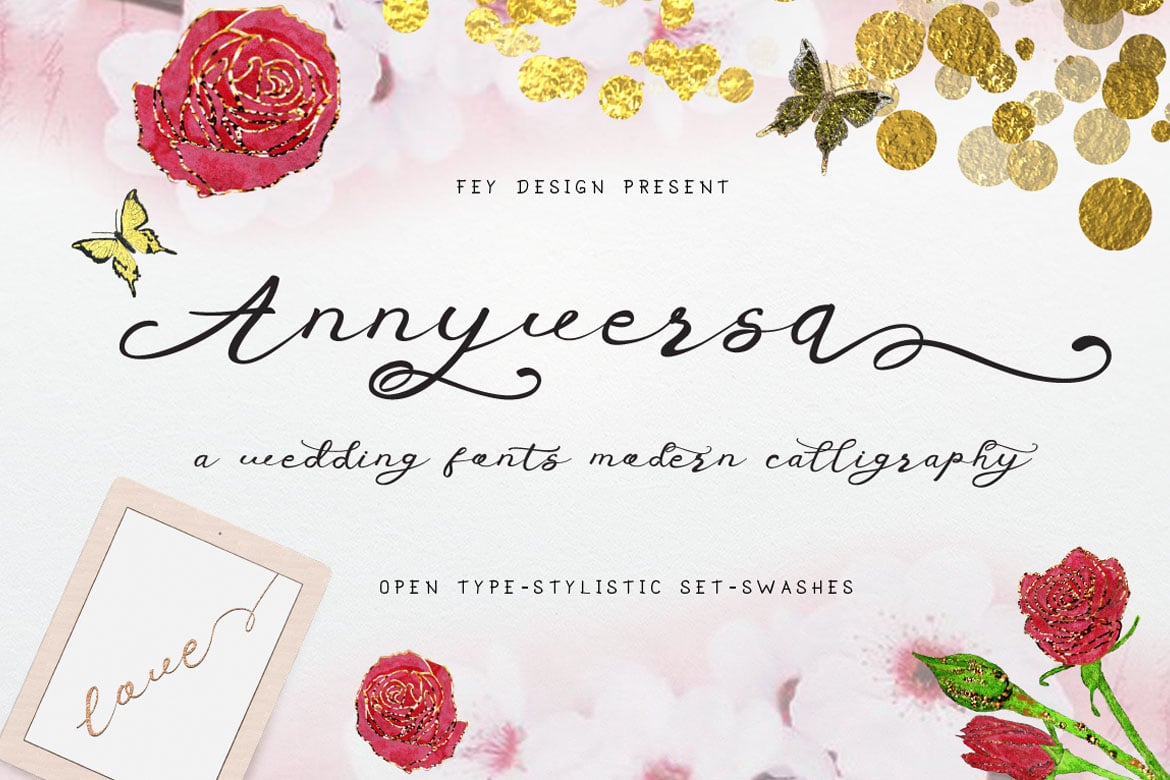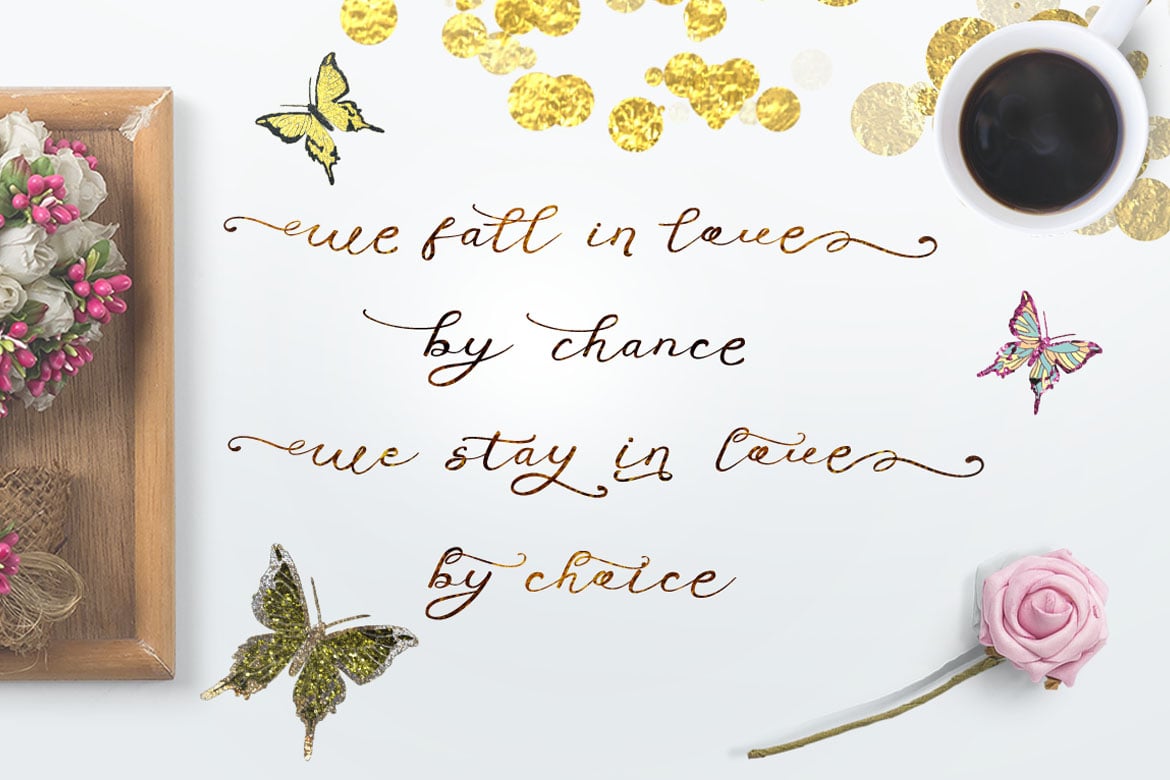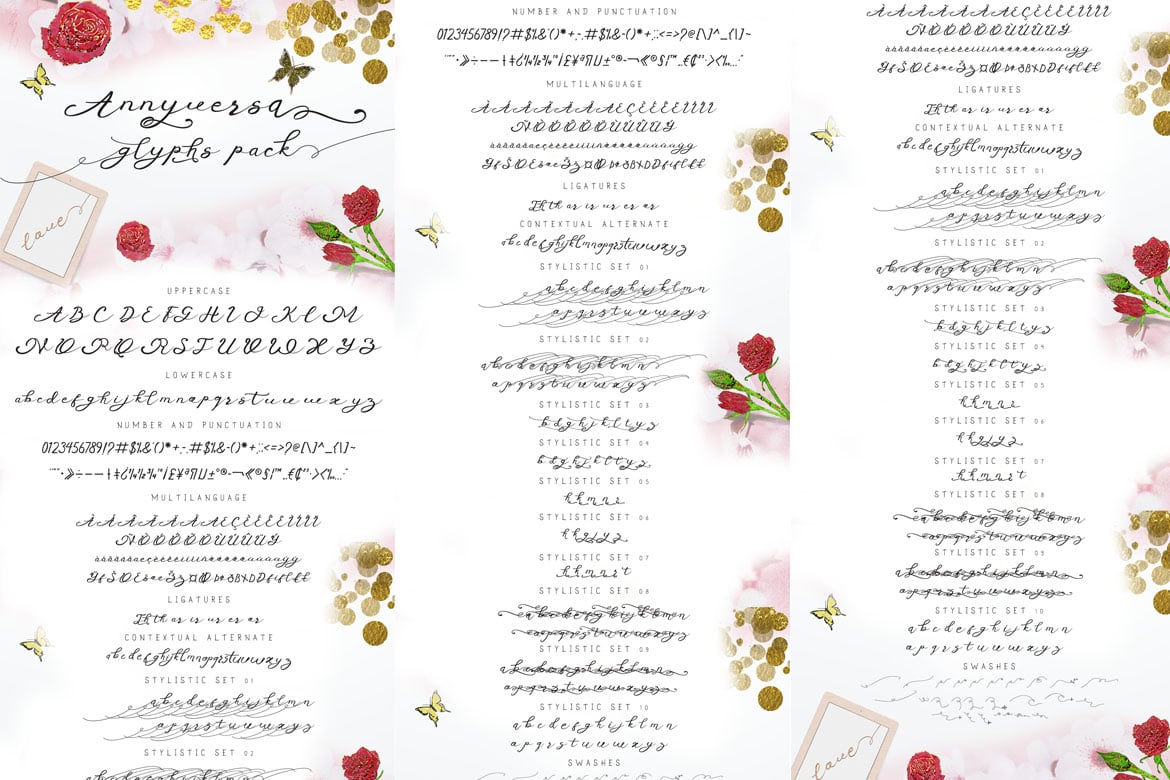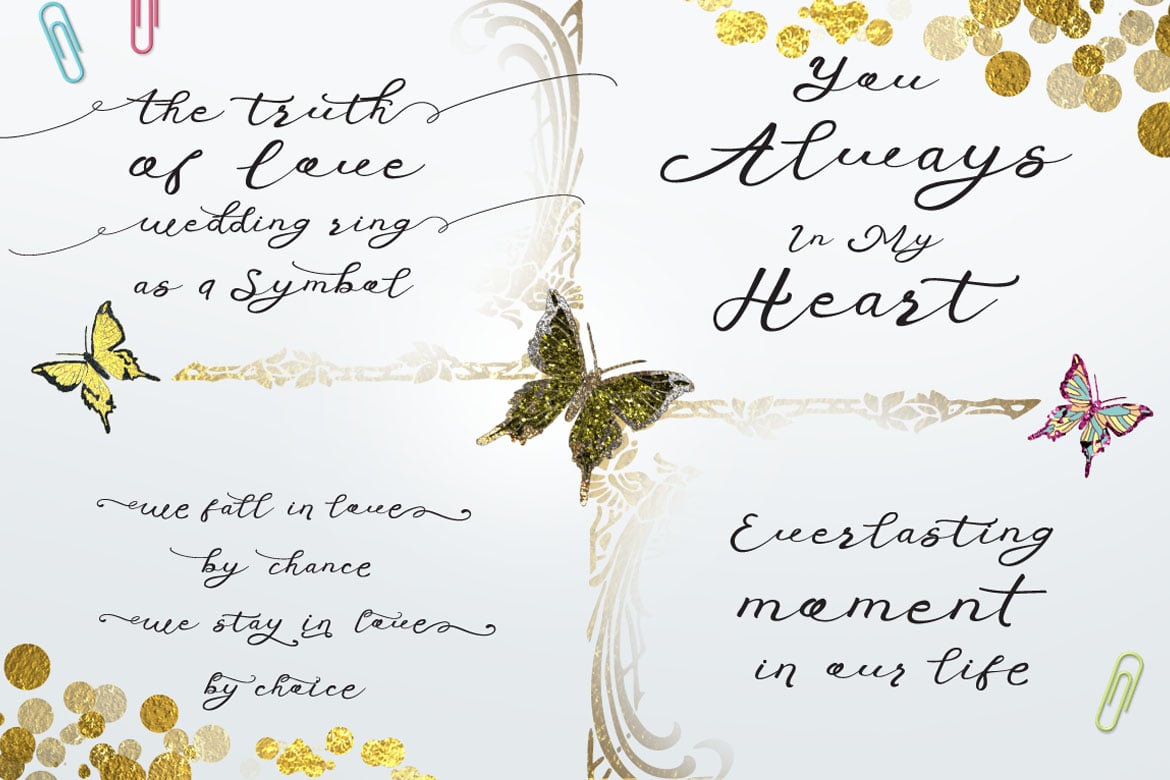
Anniversa Wedding Font
Anniversa is wedding font with modern calligraphy style, Suitable for design, element design, wedding, event, t-shirt, logo, badges, sticker, and awesome work, etc…
Combination alternative ligature fonts
Standard Ligatures, Stylistic Set, Multilanguage Characters
Modern Calligraphy Typeface
Multilanguage Support
Unique style fonts